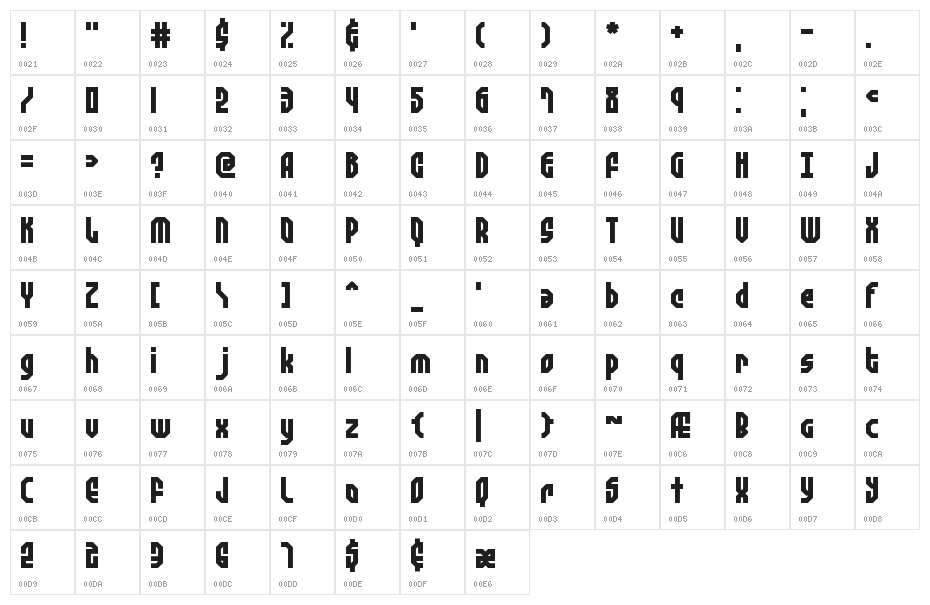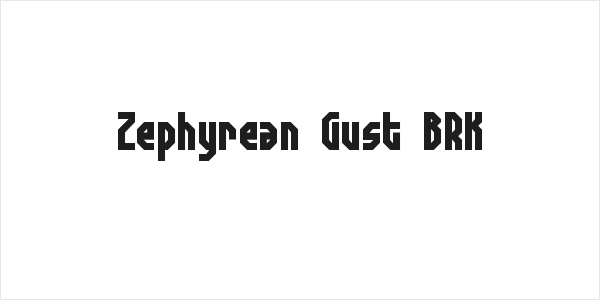
Zephyrean Gust BRK Font
Zephyrean Gust BRK Description
This font features a bold, geometric design with sharp angles and a strong presence. The characters are constructed with thick lines and a blocky appearance, giving it a modern and industrial feel. The uppercase and lowercase letters maintain a consistent style, with the uppercase letters being particularly striking due to their uniform height and width. Numbers and special characters are designed to match the boldness of the alphabet, ensuring a cohesive look across all text. The font's unique style makes it suitable for attention-grabbing headlines and logos.
| Proposed Projects | Ideal for use in branding, posters, and signage where a strong visual impact is desired. |